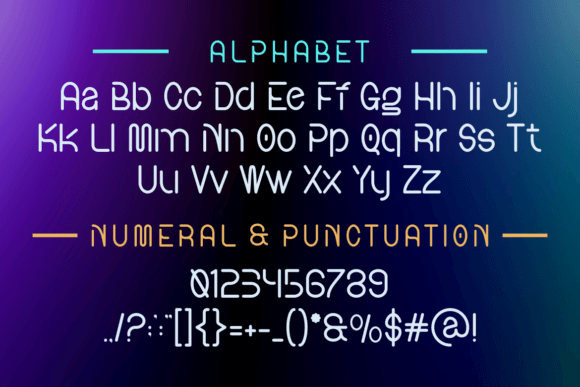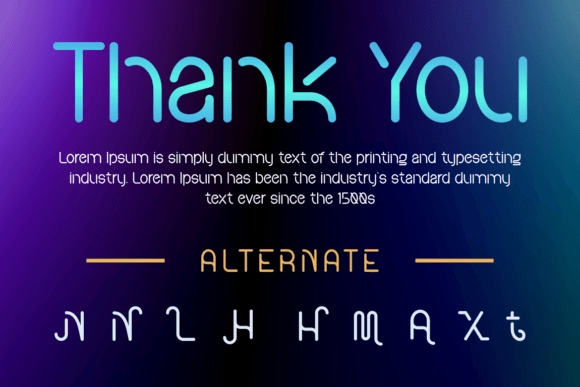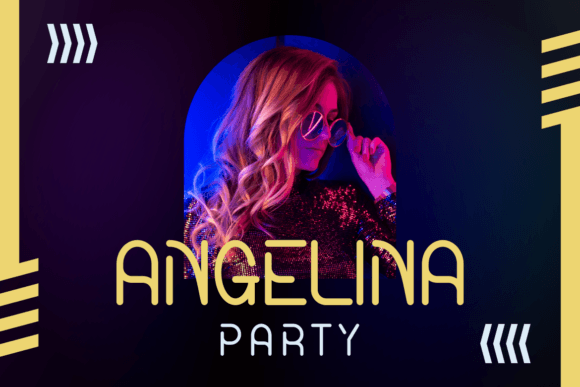
Introduction to Neone Light Font
Have you ever found yourself in the middle of a creative project, staring at a blank canvas or a blank document, desperately searching for the perfect font to bring your vision to life? That’s exactly where the Neone Light Font comes in – a modern, bold, and authentic display font that’s sure to elevate any branding project, from logo design to t-shirt printing.
As designers, we’re constantly on the lookout for high-quality design resources that can help us stand out from the crowd. The Neone Light Font is an exceptional addition to any designer’s toolkit, offering a transparent background that makes it perfect for creative projects requiring a touch of sophistication.
Whether you’re working on a personal project or a client’s branding initiative, the Neone Light Font is an invaluable resource that’s available for free download. With its bold and authentic style, it’s sure to make a lasting impression in a wide range of contexts.
Key Features of Neone Light Font
- Neone Light Font is a versatile design element that can be used on a transparent background, making it perfect for a variety of creative applications.
- Unique characteristics include its modern and minimalist design, making it a great choice for designers looking to add a touch of sophistication to their creative project.
Honest Review: Neone Light Font
I recently came across the Neone Light Font and was excited to give it a try. As a designer, I’m always on the lookout for high-quality design resources to enhance my creative projects. In this review, I’ll share my honest thoughts on this font.
- ✨ High-quality design: The Neone Light Font is well-crafted, with smooth lines and a clean aesthetic that’s perfect for modern designs.
- ✨ Versatility: This font is suitable for a wide range of creative projects, from digital designs to print materials.
- ⚠️ Limited customization options: While the font itself is well-designed, there are limited customization options available, which might limit its use in certain projects.
- ⚠️ Not suitable for complex designs: Due to its minimalist design, the Neone Light Font might not be the best choice for complex designs that require a lot of font variations.
Overall, I think the Neone Light Font is a great addition to any designer’s toolkit. Its high-quality design and versatility make it a valuable resource for creative projects. While it may have some limitations, I believe it’s well worth considering for your next design project.
The Neone Light Font is a versatile design resource that can be used in various creative projects, thanks to its high-quality and unique aesthetic. It’s a great addition to any design collection, especially when you need a font that can stand out from the crowd.
Some tips for getting the most out of the Neone Light Font include using it in combination with other design elements, experimenting with different font sizes and colors, and taking advantage of its transparent background to create unique and eye-catching designs.
Common Use Cases for Neone Light Font
The Neone Light Font is a versatile design resource that can be used in a variety of creative projects, including logo designs, social media graphics, and presentations. Its high-quality design and transparent background make it a great choice for any project that requires a unique and eye-catching